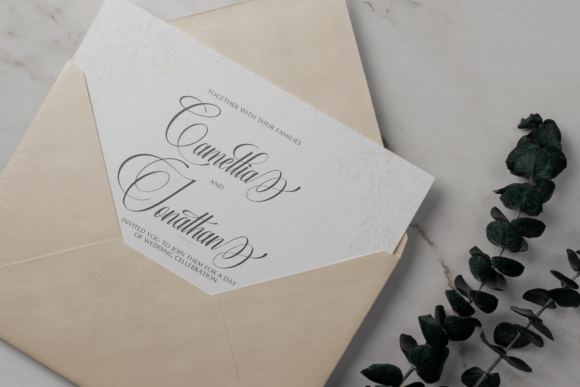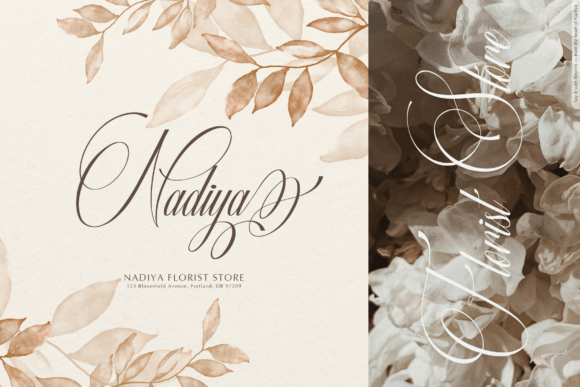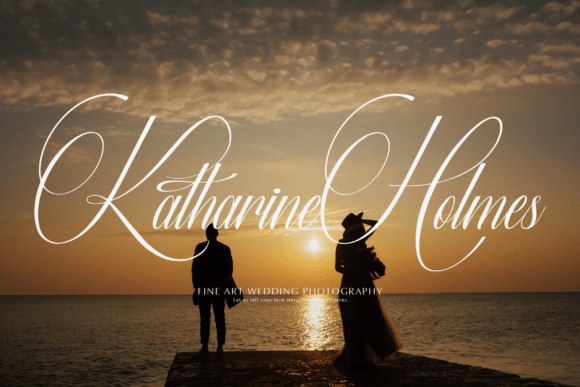
Introduction to Miss Roderick Font
Have you ever found yourself browsing through a beautifully designed wedding invitation, mesmerized by the elegant script and the way the words seemed to dance across the page? For many designers, this is the moment when creativity sparks, and a new project is born. For those who crave the perfect combination of sophistication and romance, Miss Roderick Font is the ultimate design resource.
As a high-quality, versatile typeface, Miss Roderick Font is the perfect choice for designers looking to elevate their creative projects. With over 280 glyphs, stylistic alternates, ligatures, and multilingual support, this stunning font offers endless possibilities for formal invitations, elegant branding, and upscale stationery.
Whether you’re working on a free download or a paid design project, Miss Roderick Font is an invaluable asset for any designer. Its transparent background and high-quality design make it a breeze to use, and its romantic flair is sure to add a touch of magic to any creative project.
Key Features of Miss Roderick Font
- High-quality font with a unique, elegant design, ideal for creative projects and design resources.
- Miss Roderick Font offers a transparent background, making it easy to integrate into any design without distractions.
- Designed with precision, Miss Roderick Font boasts a high resolution, ensuring crisp and clear text in any size or application.
- With its sophisticated and refined aesthetic, Miss Roderick Font is perfect for a wide range of creative projects, from branding to publishing.
- Supports various languages, including Latin, making it a versatile design resource for global projects and applications.
Honest Review: Miss Roderick Font
As a designer, I’m always on the lookout for high-quality design resources to elevate my creative projects. Recently, I had the chance to work with the Miss Roderick Font, and I’m excited to share my thoughts on this free download.
What works well: ✨ The Miss Roderick Font has a beautiful, elegant script style that’s perfect for weddings, invitations, and other special occasions. The font is also highly legible, even at smaller sizes, making it a great choice for body text. I also appreciate the transparent background option, which makes it easy to layer the font over different backgrounds.
Overall impression: I was impressed with the quality and style of the Miss Roderick Font. While it may have some limitations, it’s a great choice for designers who want a high-quality script font for their creative projects. If you’re looking for a free design resource with a transparent background, the Miss Roderick Font is definitely worth checking out.
Key features:
- High-quality script font with elegant style
- Transparent background option for easy layering
- Available in a few weights, including regular and bold
- Perfect for weddings, invitations, and other special occasions
Using Miss Roderick Font in Creative Projects
Tips for Getting the Most Out of Miss Roderick Font
To get the most out of Miss Roderick Font, experiment with different font sizes, colors, and layering techniques. Use it in combination with other design elements, such as images and graphics, to create visually appealing compositions.
Common Use Cases for Miss Roderick Font
Miss Roderick Font is ideal for a variety of creative projects, including wedding invitations, business cards, and social media graphics. Its elegant and sophisticated design makes it perfect for formal and professional applications.